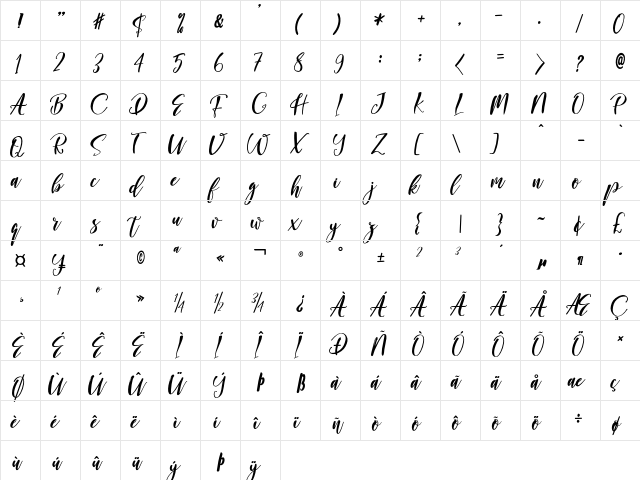
Georgina Script Regular
Design Context for Georgina Script Typeface
Georgina Script flows with the natural rhythm of handwritten lettering, making it ideal for designs that call for warmth and personal expression.
Font Pairing: Combine Georgina Script with a simple geometric sans for maximum contrast — the tension between flowing curves and clean structure is a classic typographic pairing.
Pro Tip: Pair Georgina Script with a clean sans-serif for supporting text. The contrast between fluid script and geometric structure creates an elegant typographic hierarchy.